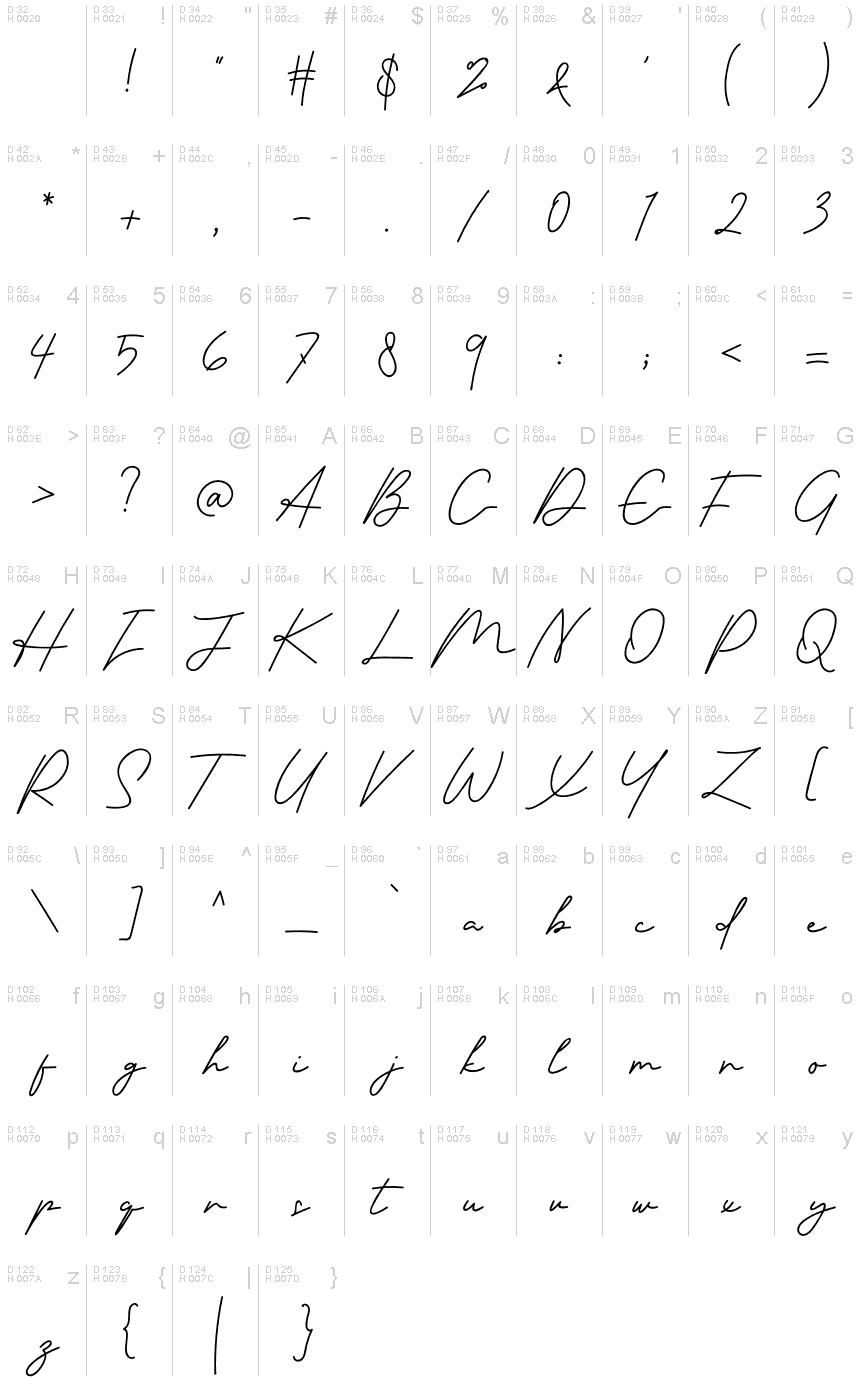
White Dream
White Dream is a stunningly elegant handwritten font designed by Behind the Ink. Its extra-light weight creates a delicate and refined look that is perfect for projects that require a touch of sophistication. Whether you're designing wedding invitations, luxury brand logos, or high-end packaging, White Dream's graceful curves and flowing lines will add an air of exclusivity to your work. This typeface is ideal for use in fashion, beauty, and lifestyle industries where style and elegance are paramount. Its charming handwritten style brings a personal touch to any design project, making it perfect for branding materials and social media graphics as well.